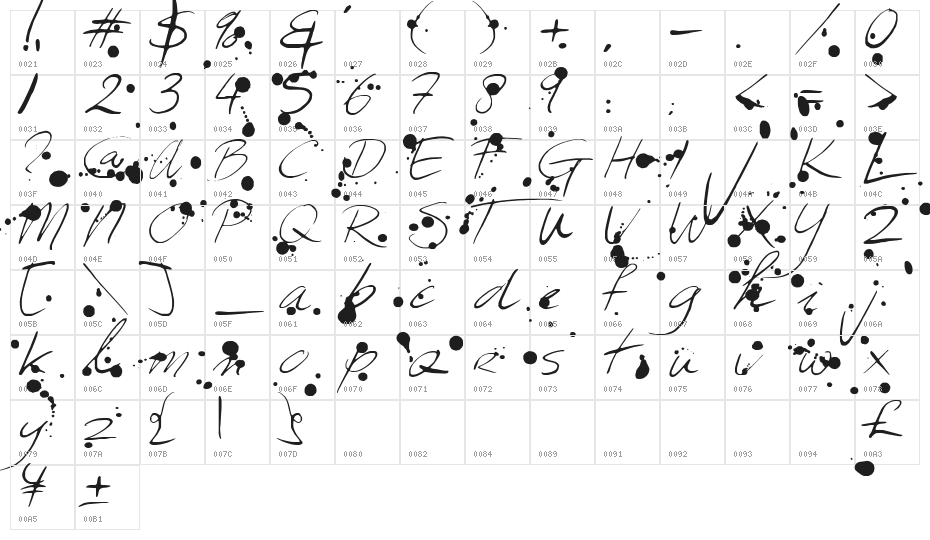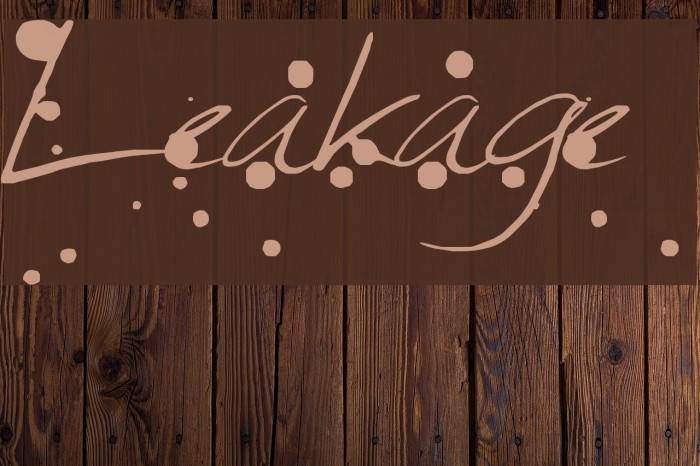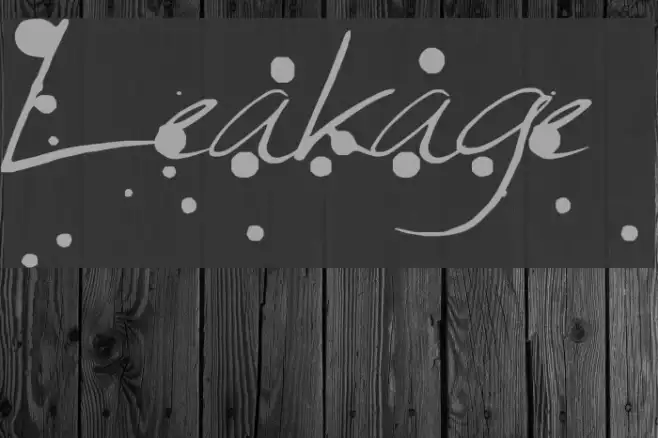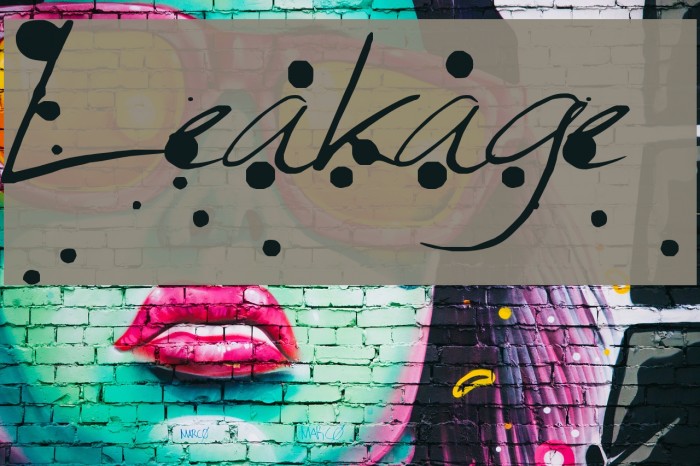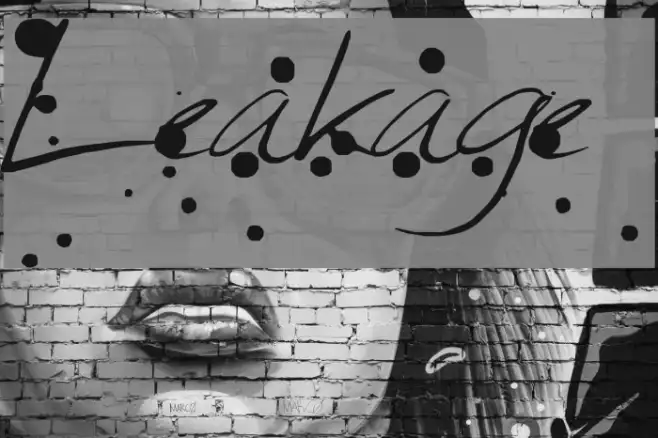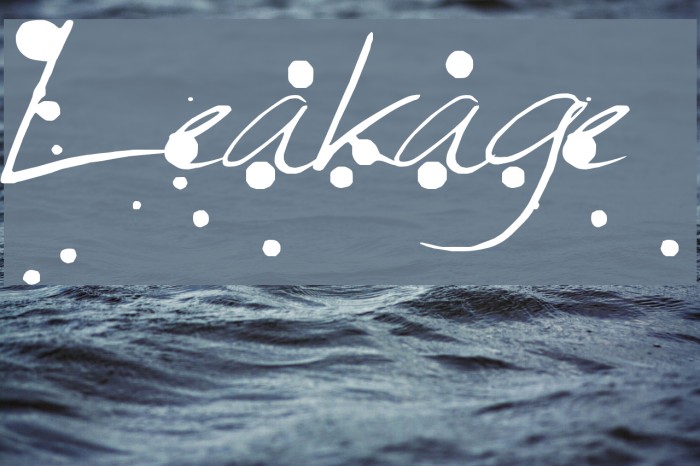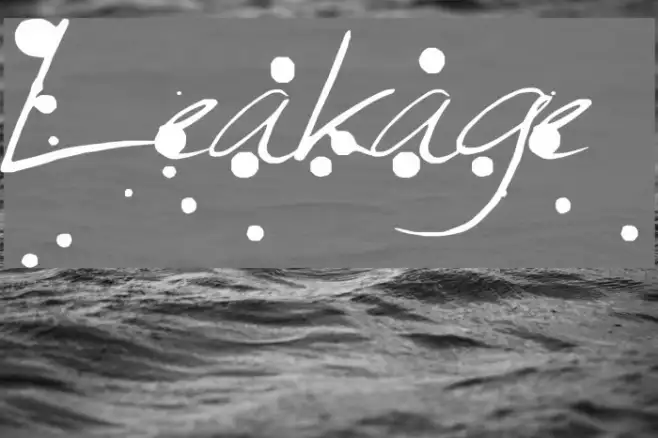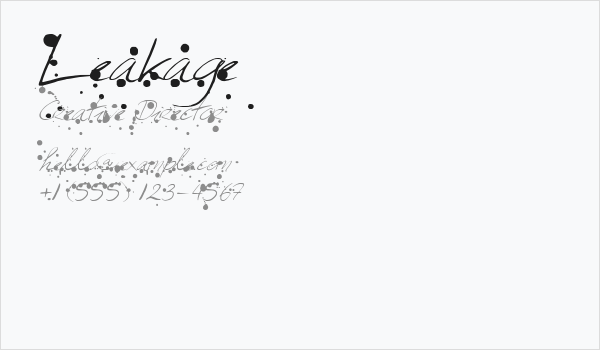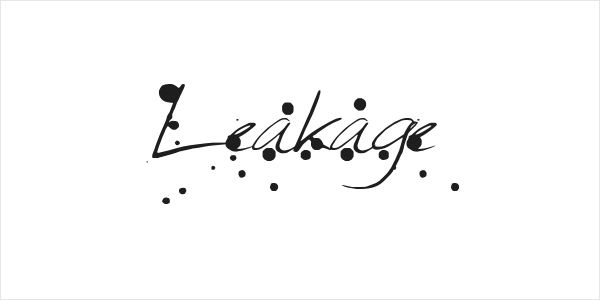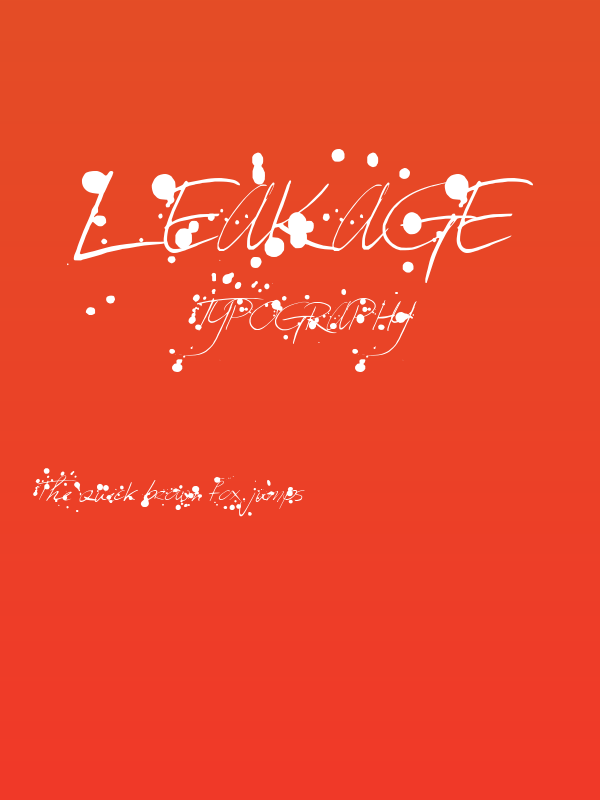
Leakage Font
Leakage Description
This font features a unique and artistic design that mimics the appearance of ink splatters and drips, giving it a dynamic and expressive feel. The characters are crafted with a fluid, handwritten style, incorporating irregularities and splashes that add a sense of movement and creativity. The uppercase and lowercase letters maintain a consistent flow, while the numbers and special characters follow the same artistic theme, making the font suitable for projects that require a bold, unconventional look.
| Overall Style | Artistic, Expressive |
| Use Case | Logos, Posters, Artistic Projects |
| Proposed Projects | Ideal for creative projects such as album covers, posters, art installations, and branding that seeks to convey a sense of spontaneity and artistic expression. |